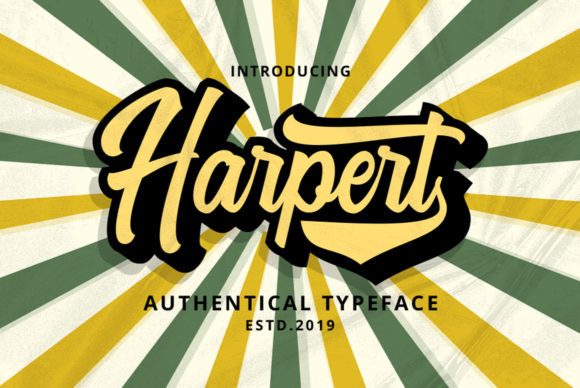
Embrace the irresistible charm of Harpert, a script font that exudes vintage elegance and retro appeal. Each stroke is a testament to the artistry of Ijem RockArt, capturing the essence of a bygone era with a touch of contemporary flair.
Harpert's timeless grace will elevate your designs, evoking a sense of nostalgia and enchantment. Its intricate flourishes and playful curves dance across the page, captivating the eye with their effortless beauty. Whether you're crafting enchanting invitations, designing captivating logos, or seeking a touch of vintage allure for your digital creations, Harpert will effortlessly transform your projects into works of art.
Dive into the world of Harpert and let its vintage charm ignite your imagination. Experience the joy of creating with a font that speaks to the heart and breathes new life into your designs.